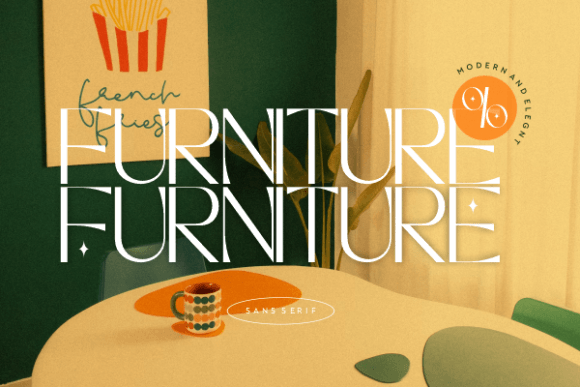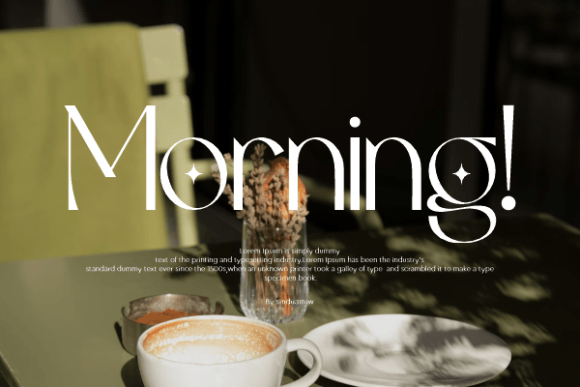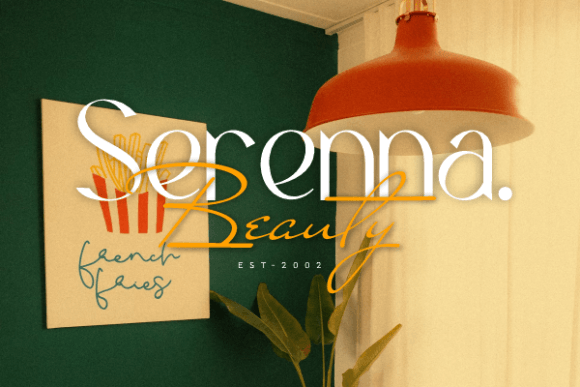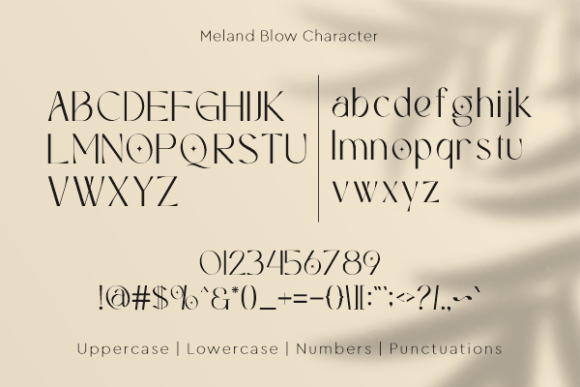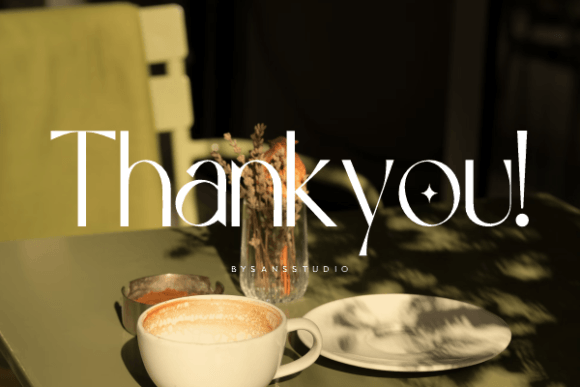
Introduction to Meland Blow Font
Meland Blow is a beautifully crafted Sans-Serif that is perfect for any design project.
This elegant and versatile font features ligatures and alternates, making it an ideal choice for creating eye-catching headlines, logos, branding, posters, and more .
Key Features of Meland Blow Font
Why Choose Meland Blow Font?
Meland Blow Font offers exceptional quality and versatility, making it a valuable addition to your design toolkit. Whether you’re creating for personal projects or commercial use, Meland Blow Font delivers professional results.